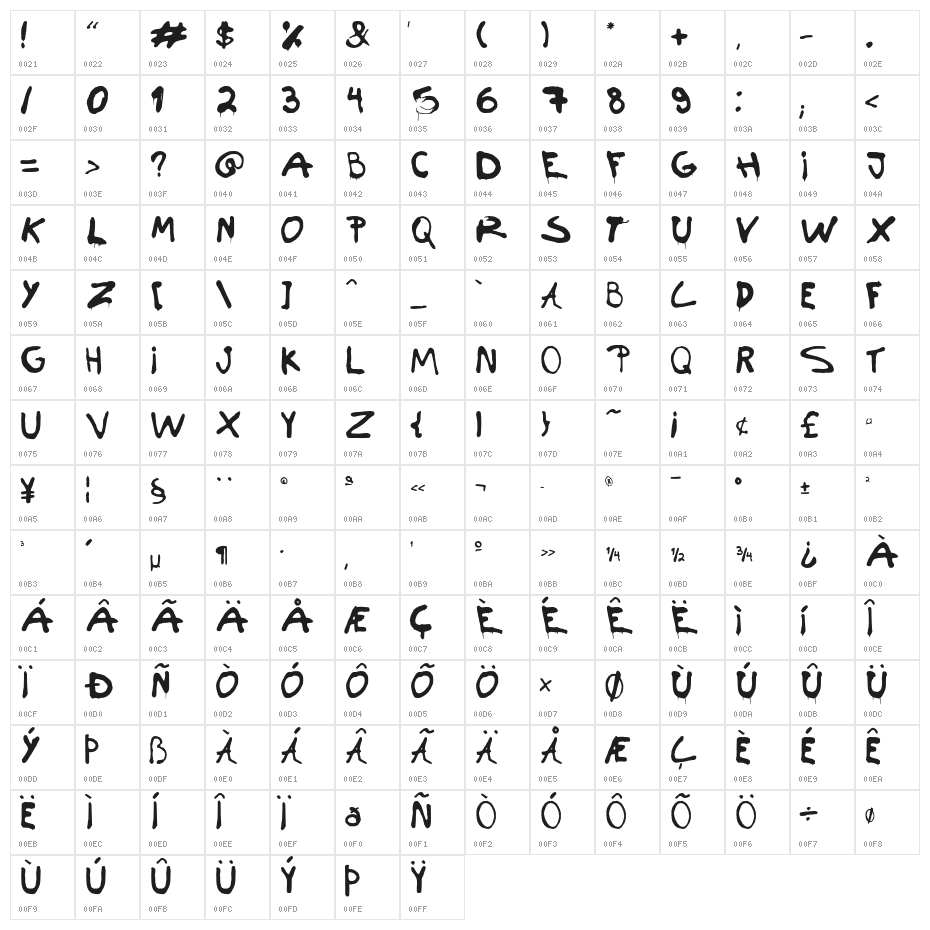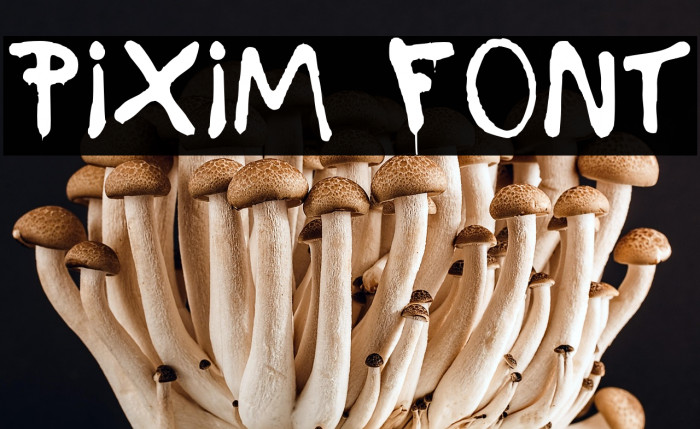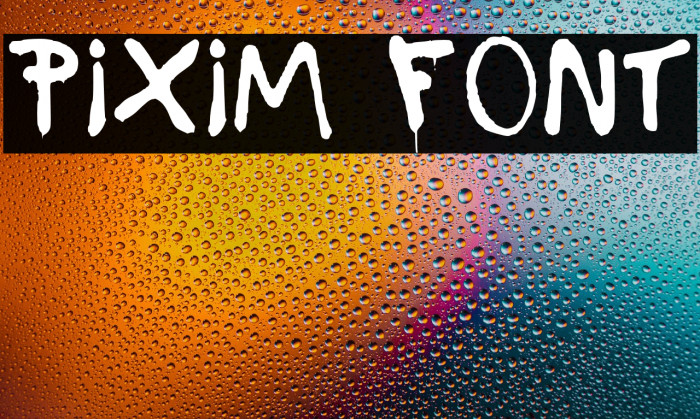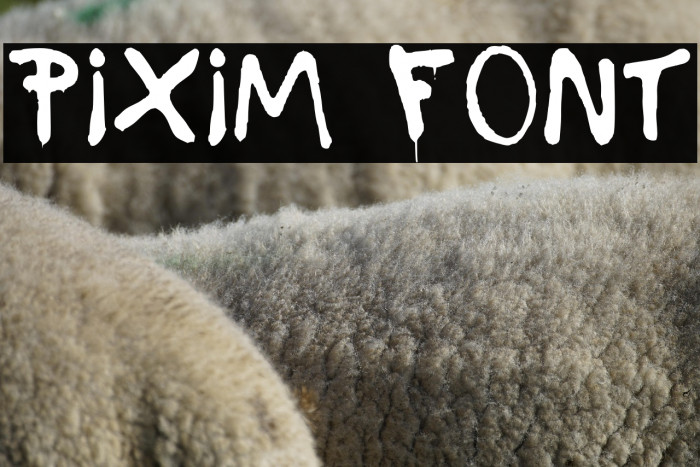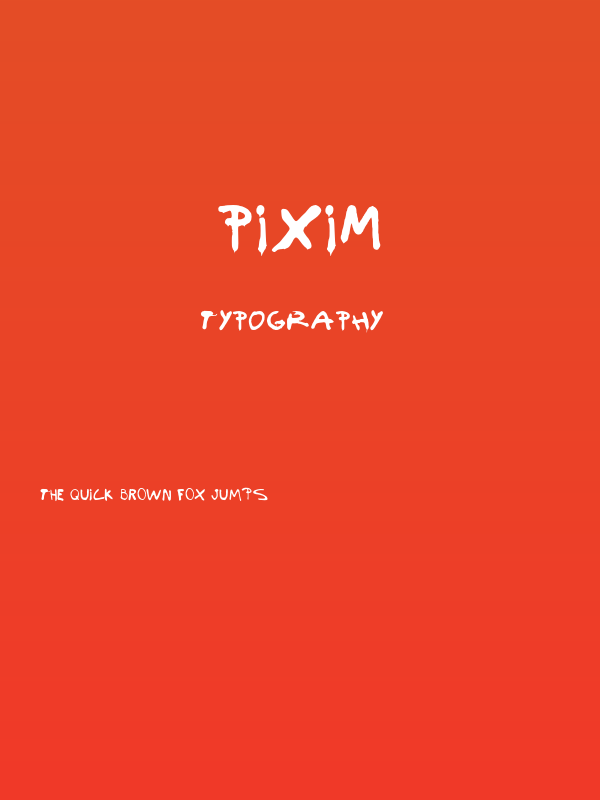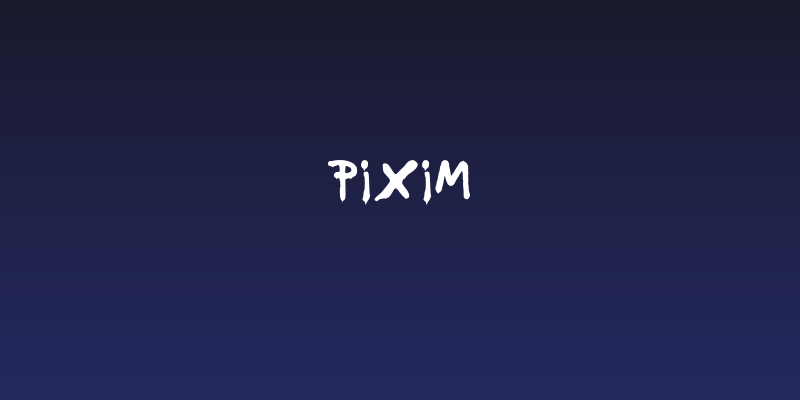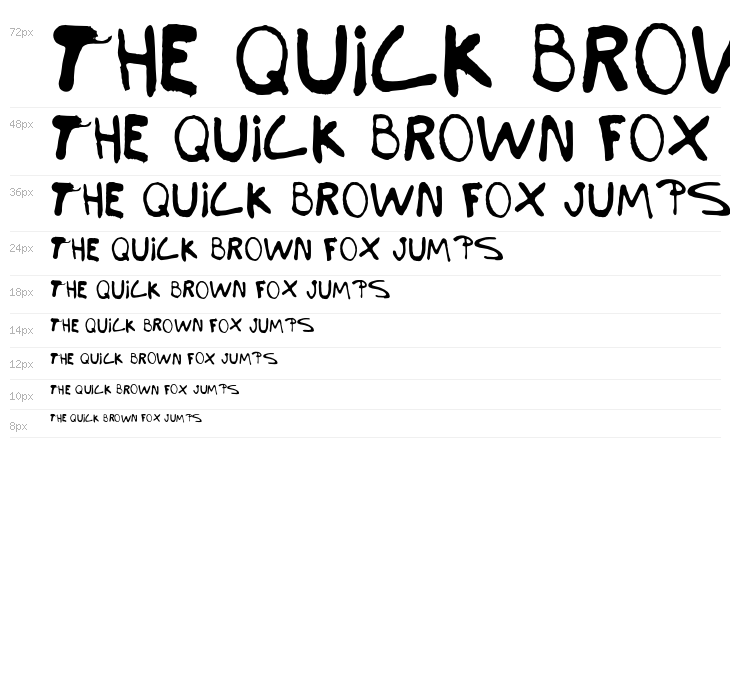
Pixim Font
Pixim Description
This font exhibits a bold and expressive style, reminiscent of graffiti or street art. The characters have a hand-painted look with irregular edges and occasional drips, adding a dynamic and energetic feel. The uppercase and lowercase letters maintain a consistent style, with a slightly condensed form that enhances their bold appearance. Numerals and special characters follow the same aesthetic, ensuring a cohesive look across all text elements. The font's unique style makes it stand out, perfect for projects that require a strong visual impact.
| Overall Style | Modern, Urban |
| Proposed Projects | Ideal for street art-themed designs, posters, album covers, and urban branding projects. |